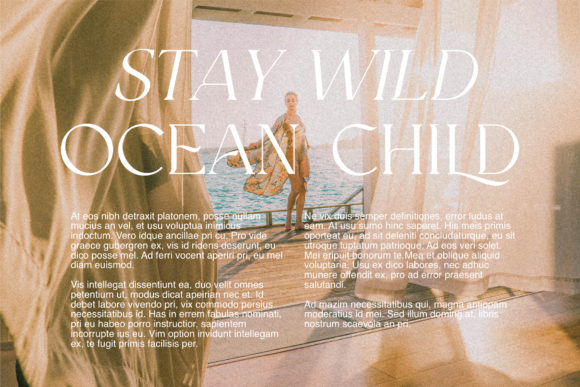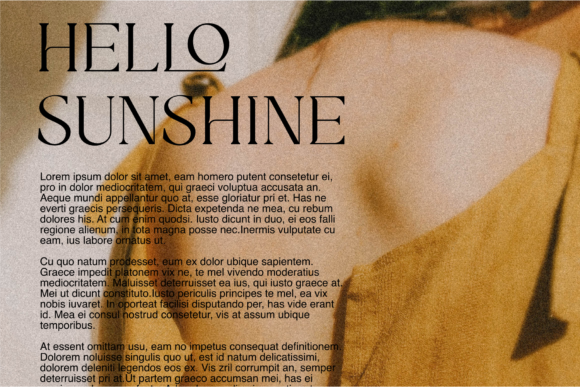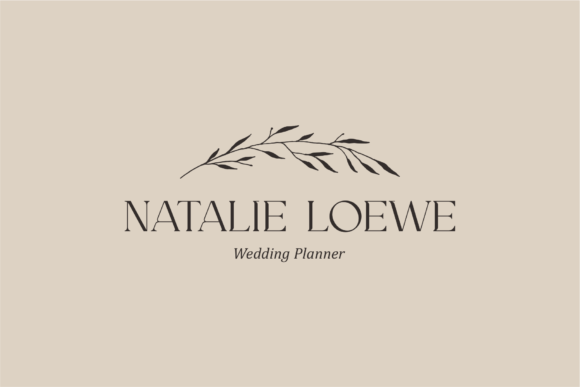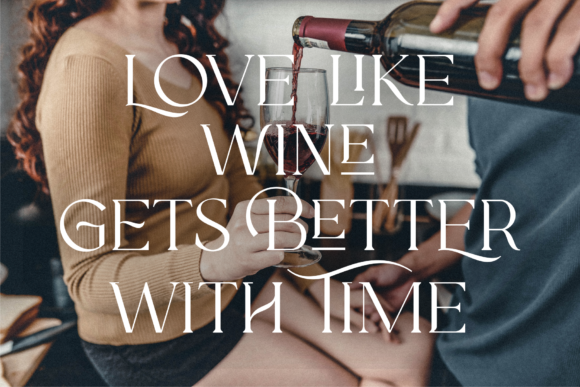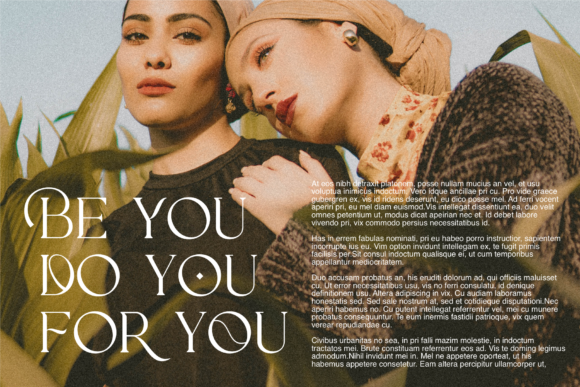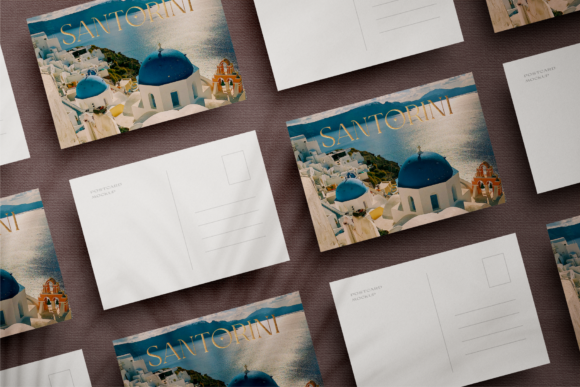
Introducing Casey Font: Elevate Your Designs with Luxury and Elegance
Are you tired of using the same old fonts in your designs? Look no further than Casey Font, a stunning editorial serif typeface that exudes luxury and sophistication. With its intricate ligatures, alternates, and glyphs, Casey is the perfect choice for designers and crafters looking to add a touch of elegance to their projects.
What is Casey Font?
Casey Font is a beautifully crafted serif typeface designed specifically for editorial projects, logo design, clothing branding, product packaging, and magazine headers. Its versatility makes it an ideal choice for any graphic design project, whether you’re working on a large-scale campaign or a small, personal project. The font’s elegant lines and luxurious features make it perfect for adding a touch of sophistication to your designs.
Key Features of Casey Font
• Luxury Ligatures: Casey Font features intricate ligatures that add a touch of elegance to your designs. These ligatures can be used to create beautiful, flowing text that is sure to impress.
• Alternates and Glyphs: The font comes with a range of alternates and glyphs, allowing you to customize your text to suit your design needs. From subtle variations to more dramatic changes, Casey Font’s alternates and glyphs give you the flexibility to create unique and eye-catching designs.
• Versatility: Casey Font is designed to look great in both big and small sizes, making it perfect for a wide range of applications. Whether you’re working on a billboard or a business card, Casey Font is sure to make a statement.
Uses for Casey Font
So, what can you use Casey Font for? The possibilities are endless! Here are a few ideas to get you started:
• Editorial Projects: Use Casey Font to add a touch of elegance to your editorial projects, such as magazine articles, blog posts, and books.
• Logo Design: Create a stunning logo for your business or brand with Casey Font. Its luxurious features make it perfect for high-end brands and businesses.
• Clothing Branding: Add a touch of sophistication to your clothing brand with Casey Font. Use it for labels, packaging, and marketing materials.
• Product Packaging: Use Casey Font to create beautiful and eye-catching packaging for your products. Its versatility makes it perfect for a wide range of products, from cosmetics to luxury goods.
• Magazine Headers: Add a touch of elegance to your magazine headers with Casey Font. Its luxurious features make it perfect for high-end publications.
Why Choose Casey Font?
So, why should you choose Casey Font for your next design project? Here are a few reasons:
• Unique and Eye-Catching: Casey Font is a unique and eye-catching typeface that is sure to make your designs stand out.
• High-Quality Design: The font is designed to the highest standards, ensuring that it looks great in any application.
• Versatile: Casey Font is versatile and can be used for a wide range of applications, from editorial projects to logo design.
• Luxurious Features: The font’s luxurious features, such as ligatures and alternates, add a touch of elegance to your designs.
In conclusion, Casey Font is a stunning editorial serif typeface that is perfect for designers and crafters looking to add a touch of luxury and elegance to their designs. Its intricate ligatures, alternates, and glyphs make it a versatile and eye-catching choice for a wide range of applications. Whether you’re working on an editorial project, logo design, or product packaging, Casey Font is sure to make a statement. So why not give it a try and see the difference it can make in your designs?